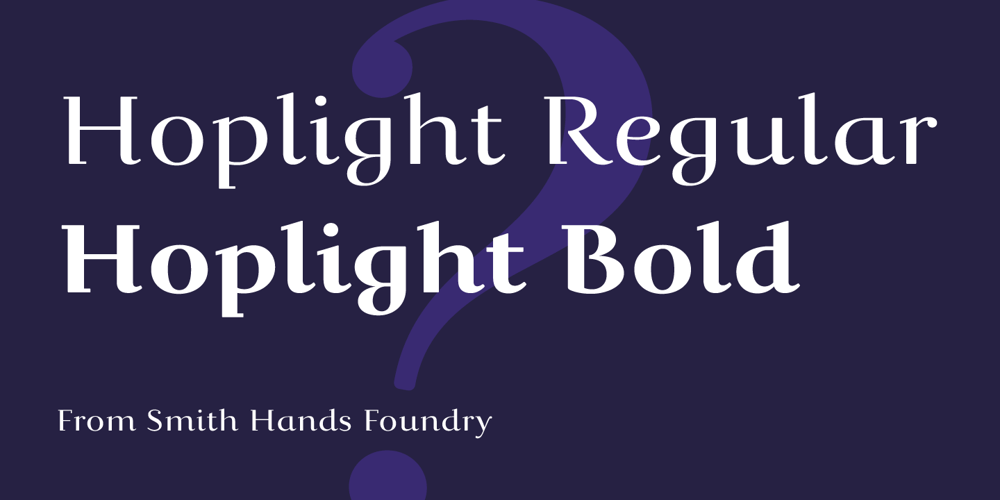
Hoplight Font Family was designed by Robbie Smith and published by Smith Hands. Hoplight contains 2 styles and family package options. Hoplight is a friendly, curvy, hybrid. A fusion of the cool character of a roman, with the flow and informality of an italic. Throughout Hoplight, many sharp serifs have been replaced by dot style serifs, to allow the contours of the letters to flow seamlessly into the terminations. Hoplight embodies a sense of playful ease.